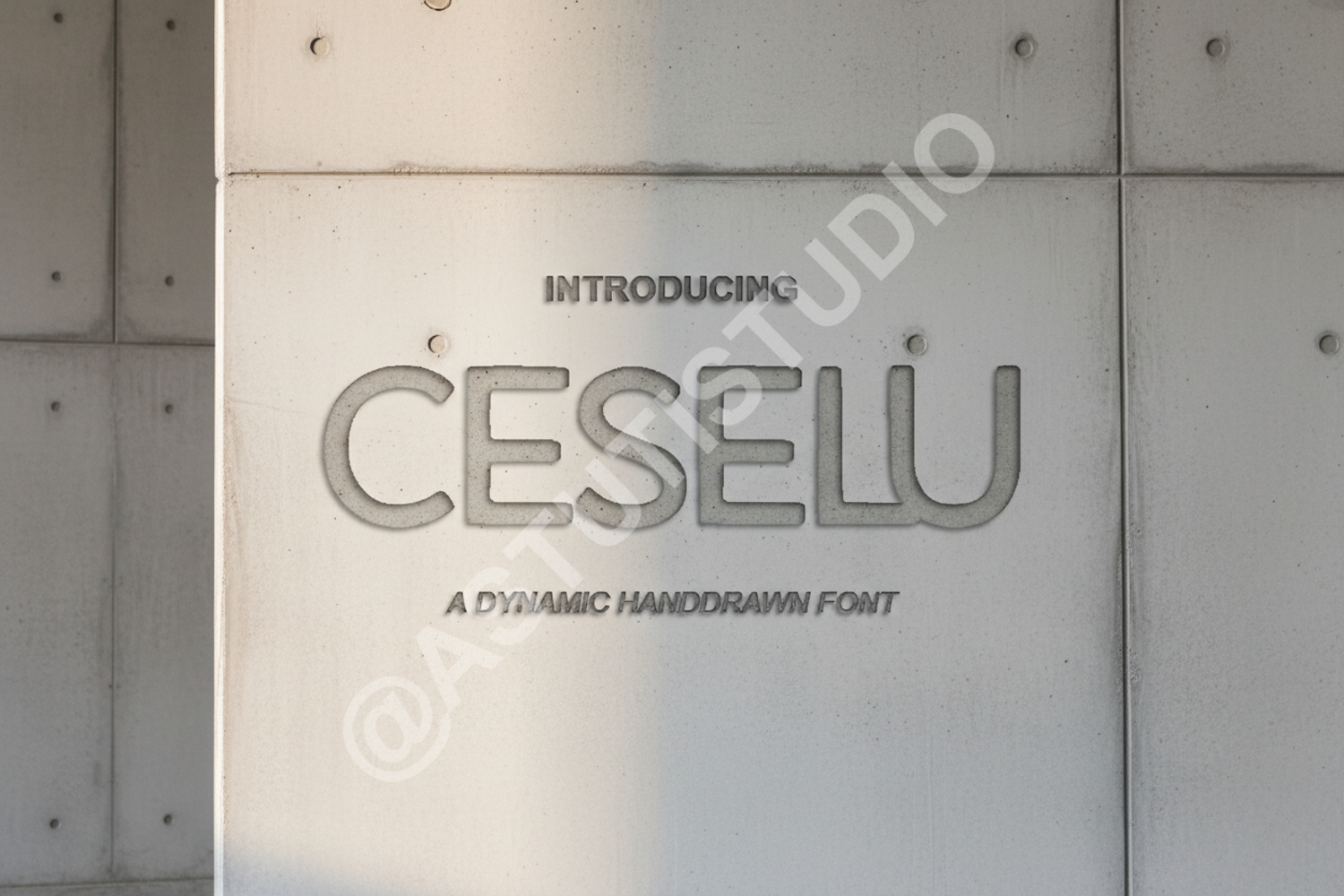
Ceselu - Elegant & Modern Sans Serif Typeface
Ceselu
Elevate your creative projects with Ceselu, a premium sans serif typeface designed for modern sophistication. Ceselu combines clean lines with subtle contemporary touches, making it a versatile choice for designers who demand both style and readability. Whether you are crafting a high-end brand identity or a minimalist editorial layout, this font provides the professional edge your work deserves.
- Branding and Identity: Create memorable logos and corporate stationery.
- Editorial Design: Perfect for magazine headers, body text, and book covers.
- Digital Marketing: Enhance social media graphics and web banners.
- Luxury Packaging: Add a touch of class to product labels and boxes.
- Wedding Invitations: Ideal for modern, clean stationery sets.